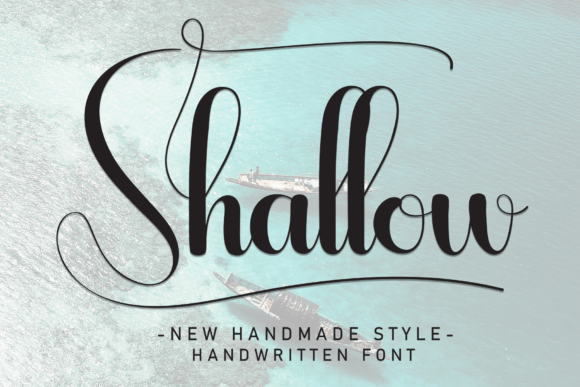
Dive into a sea of exquisite handwritten charm with Shallow Font, a script font family that embodies sweetness, friendliness, and elegance.
Beguile your audience with captivating wedding invitations, greeting cards, and designs that exude warmth and personality. Shallow Font's casual and carefree nature adds a touch of intimacy and charm to any project.
Indulge in the font's flowing curves and delicate strokes, reminiscent of a gentle breeze caressing the pages of your design. Experience the joy of crafting heartfelt messages, heartfelt letters, and stunning logos that resonate with your audience.
Immerse yourself in a world of creative possibilities with Shallow Font. From whimsical branding to heartfelt personal notes, this font family becomes an extension of your imagination, transforming words into works of art.
Unlock the boundless potential of Shallow Font today and elevate your designs to new heights of beauty and sophistication. Its versatility knows no bounds, adapting seamlessly to a myriad of projects, each one imbued with a unique and captivating charm that will leave a lasting impression.